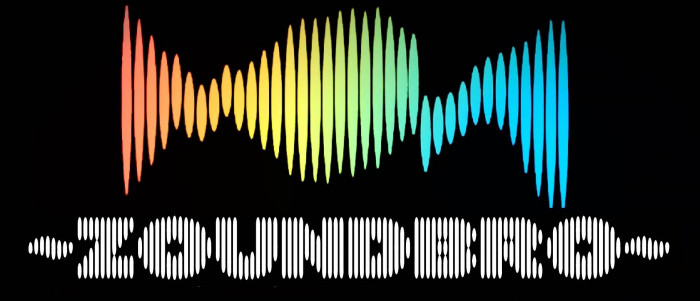
Amazing!
That is the coolest. Love it.
simply put, wow!
Marvelous! Perfect application of the medium that aptly and effortlessly demonstrates the power of nudging paired with a keen eye. ?/?
This is so good! The diacritics are excellent.
@will.i.ૐ: Thank you very much, dear Master. You make me blush with your kind comments. You've perfectly described the simplicity of this font, built with just a few bricks and the rest is nudging.
@four: Thanks a million, querido compañero. Glad you liked these diacritics (some were a bit more complicated than others). Also, I was looking forward to trying a line font again.
Excellent.
Congratulations to you too for an outstanding fontstruct.
this font sounds really good
Yes. To me it feels like a flourish. The illustration fits it perfectly.
I like this. I mean, this is extraordinary.
This is nothing like other projects I've seen yet.